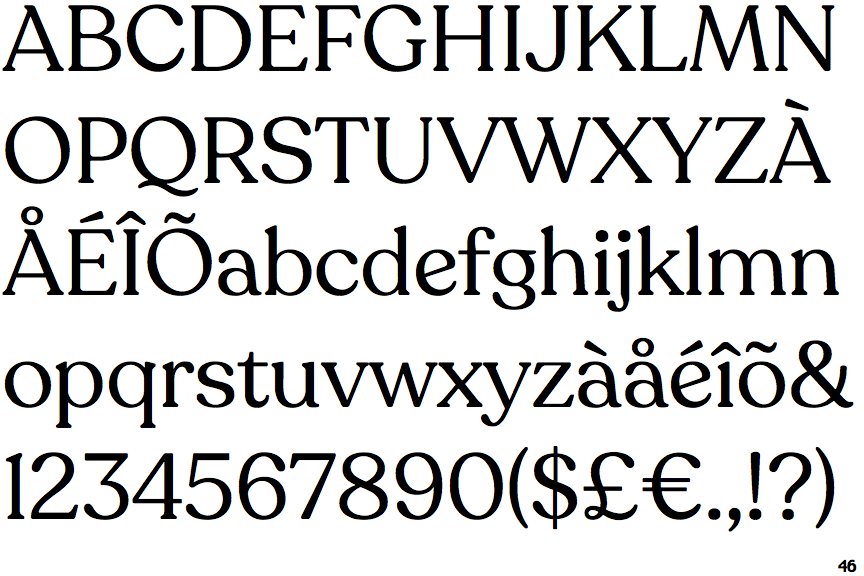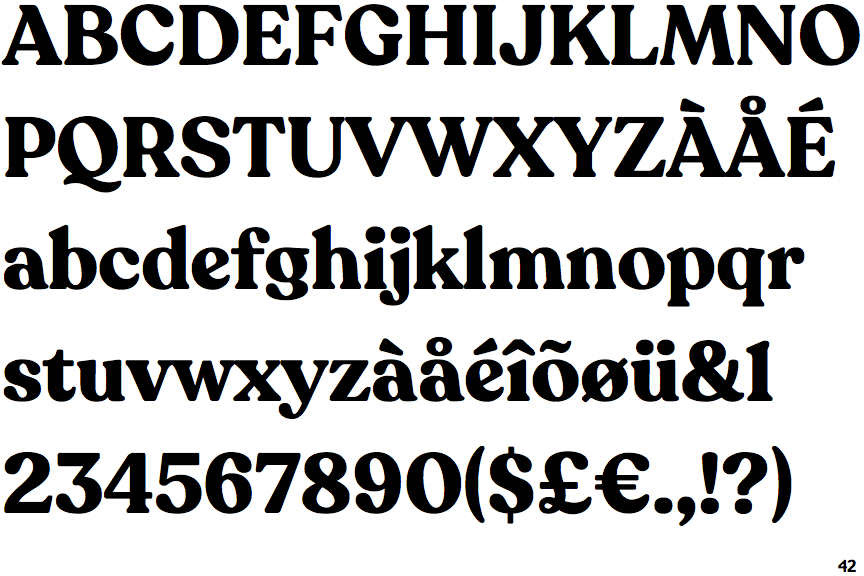
Fonts Similar To Recoleta. There are various fonts that are similar to this typeface. Just like grandma’s recipe, recoleta combines a variety of ingredients—from various popular 1970s typefaces—such as the soft and gentle shapes found in coo
Itc souvenir (ef) windsor light: 1,500,000+ fonts, freebies & design assets by. Recoleta extra bold is just pure fun.
Recoleta Is A Serif Typeface Designed By Jorge Cisterna And Published Through Latinotype In 2018.
So, It Is Also Using As An Alternative To This Font Style.
Is There Any Font Similar To The Recoleta Font?
Browse our collection of fonts similar to recoleta regular: Fonts most similar to 'recoleta': Just like grandma's recipe, recoleta combines a variety of ingredients—from various popular 1970s typefaces—such as the soft and gentle shapes found in cooper or fluid, angled strokes in windsor— mixed into one single design that features familiar yet fresh, modern flavors.
Recoleta Light Is Sophisticated And Playful.
Recoleta extra bold is just pure fun. There are various fonts that are similar to this typeface. With recoleta bold serif font family, this font has come with many choices from thin to bold style, give you a lot of choices for using it.